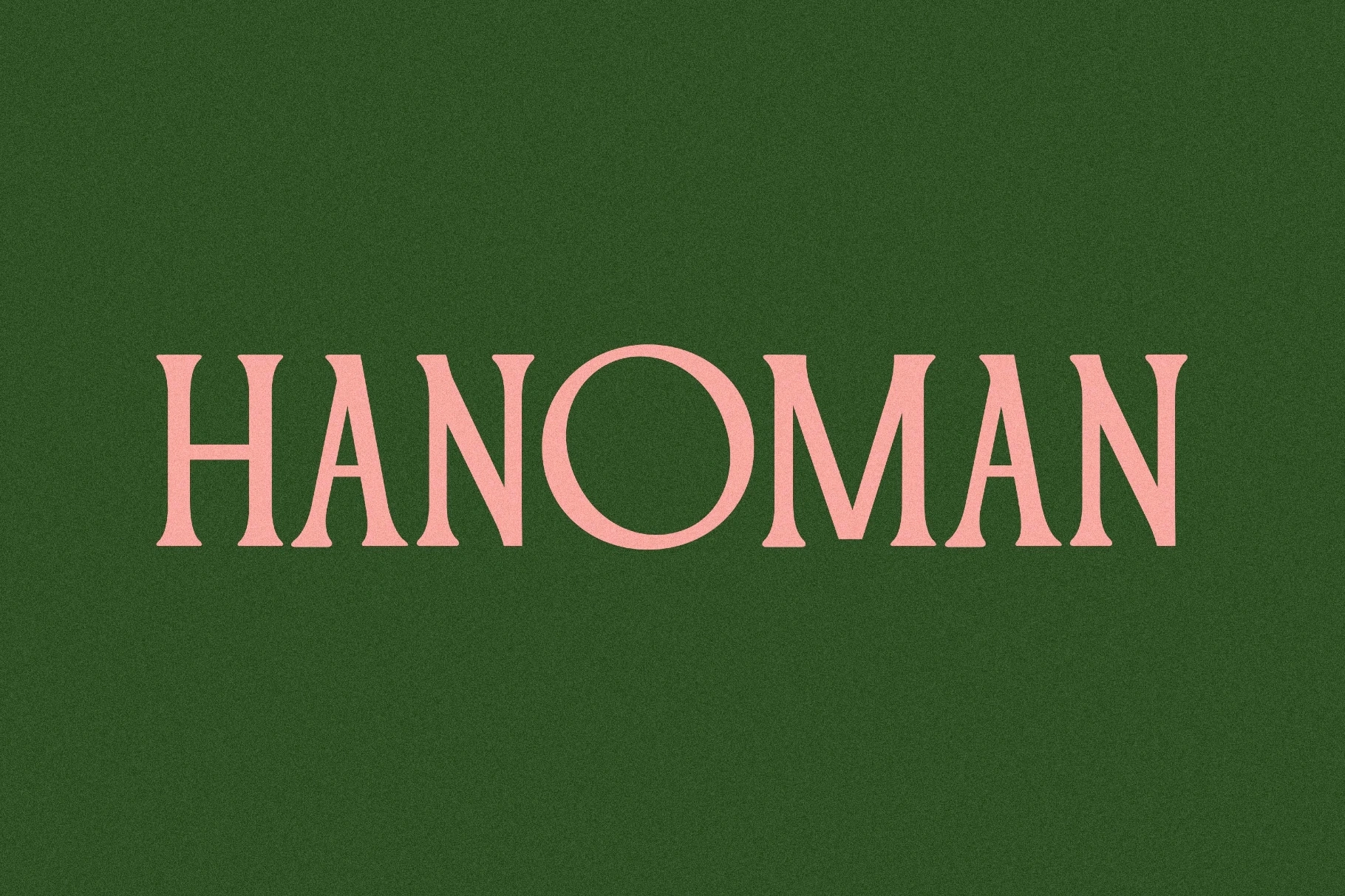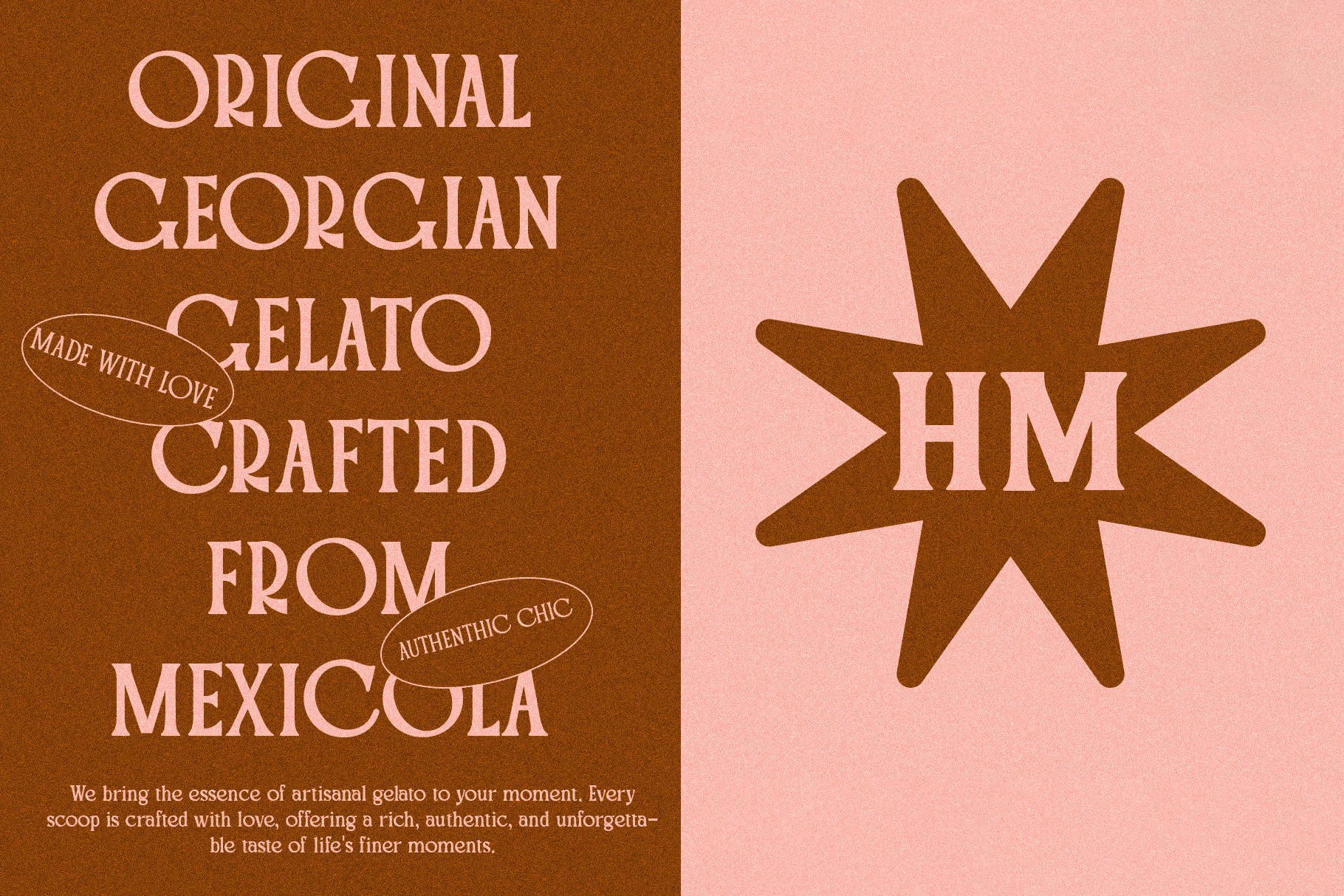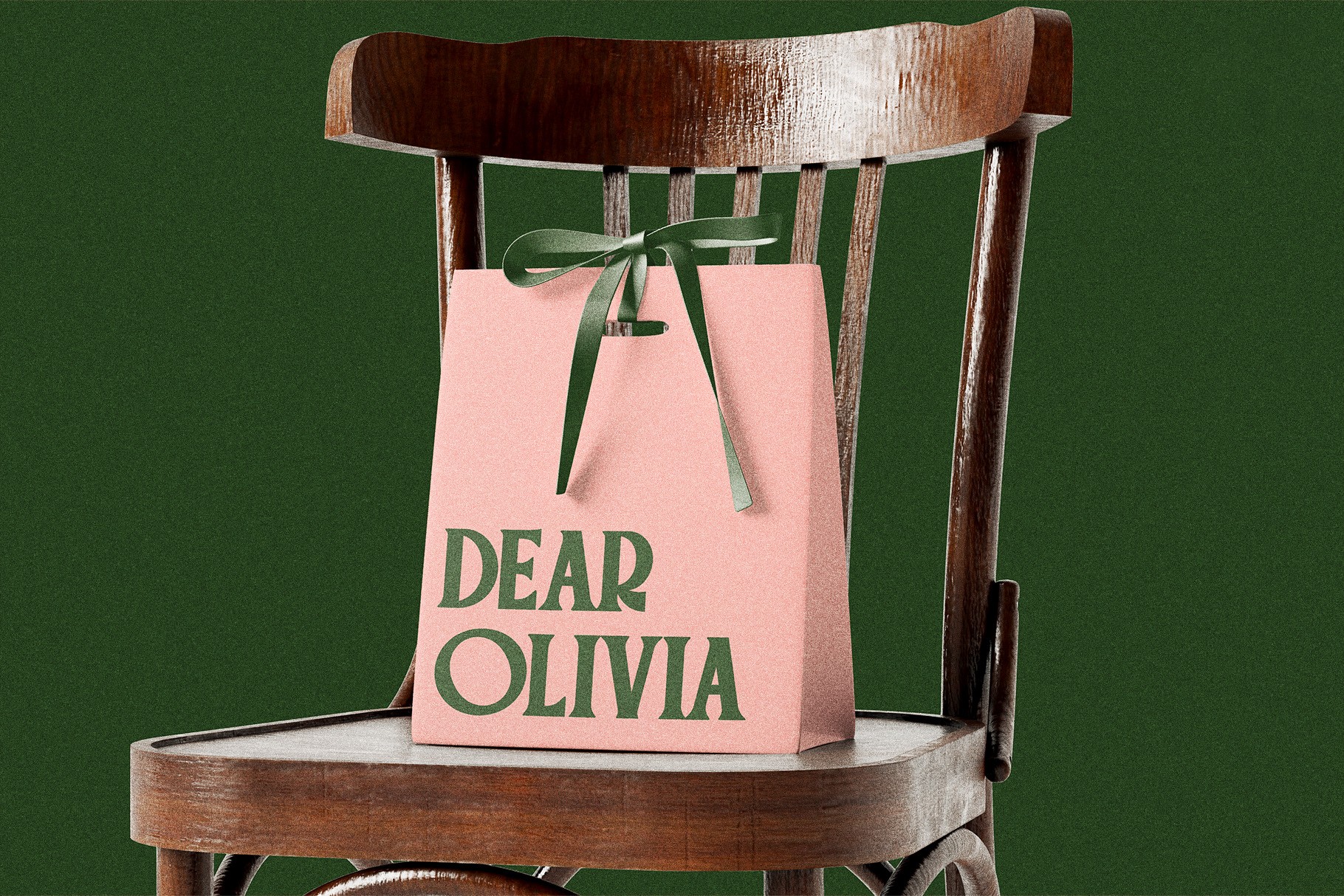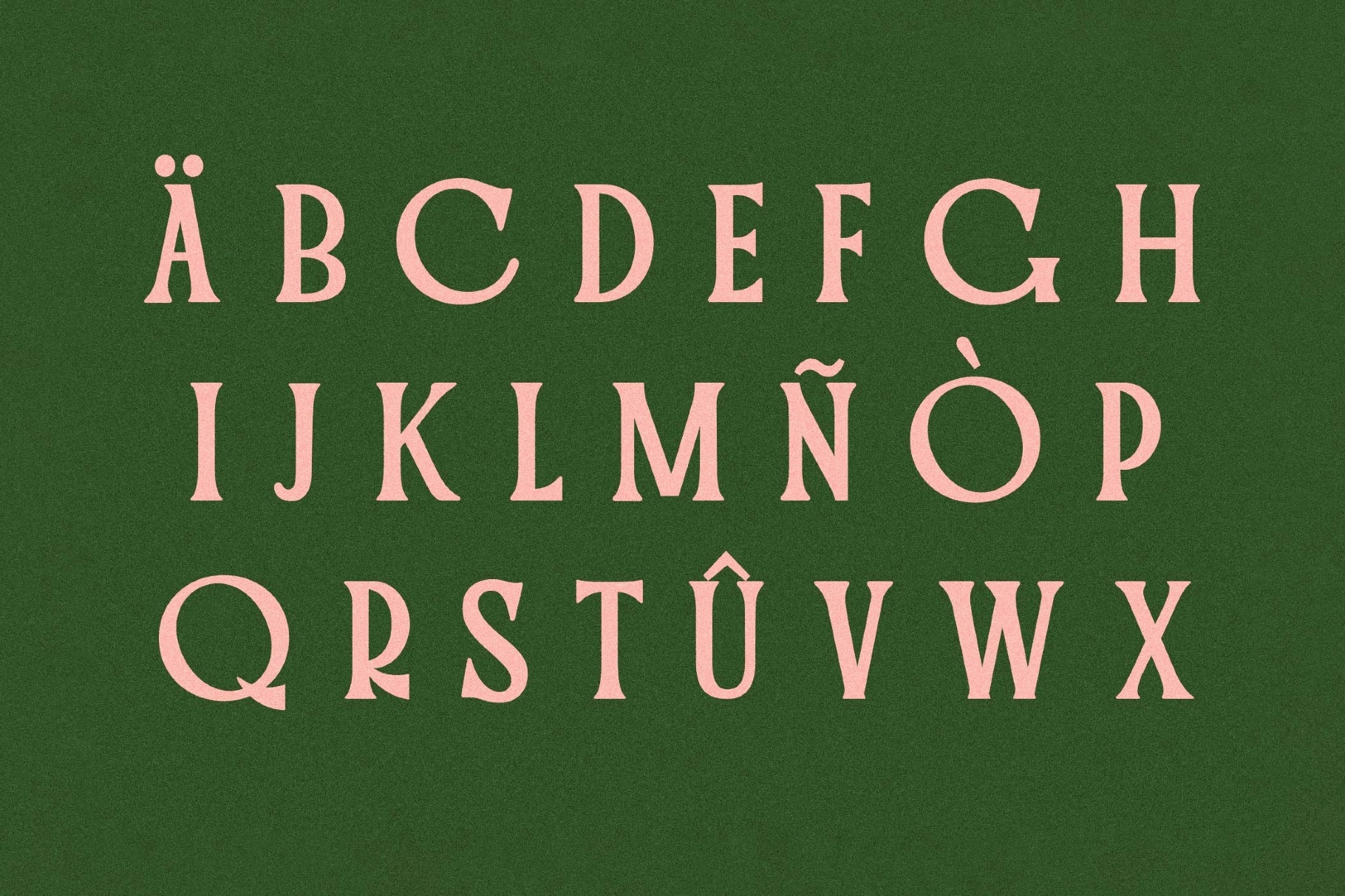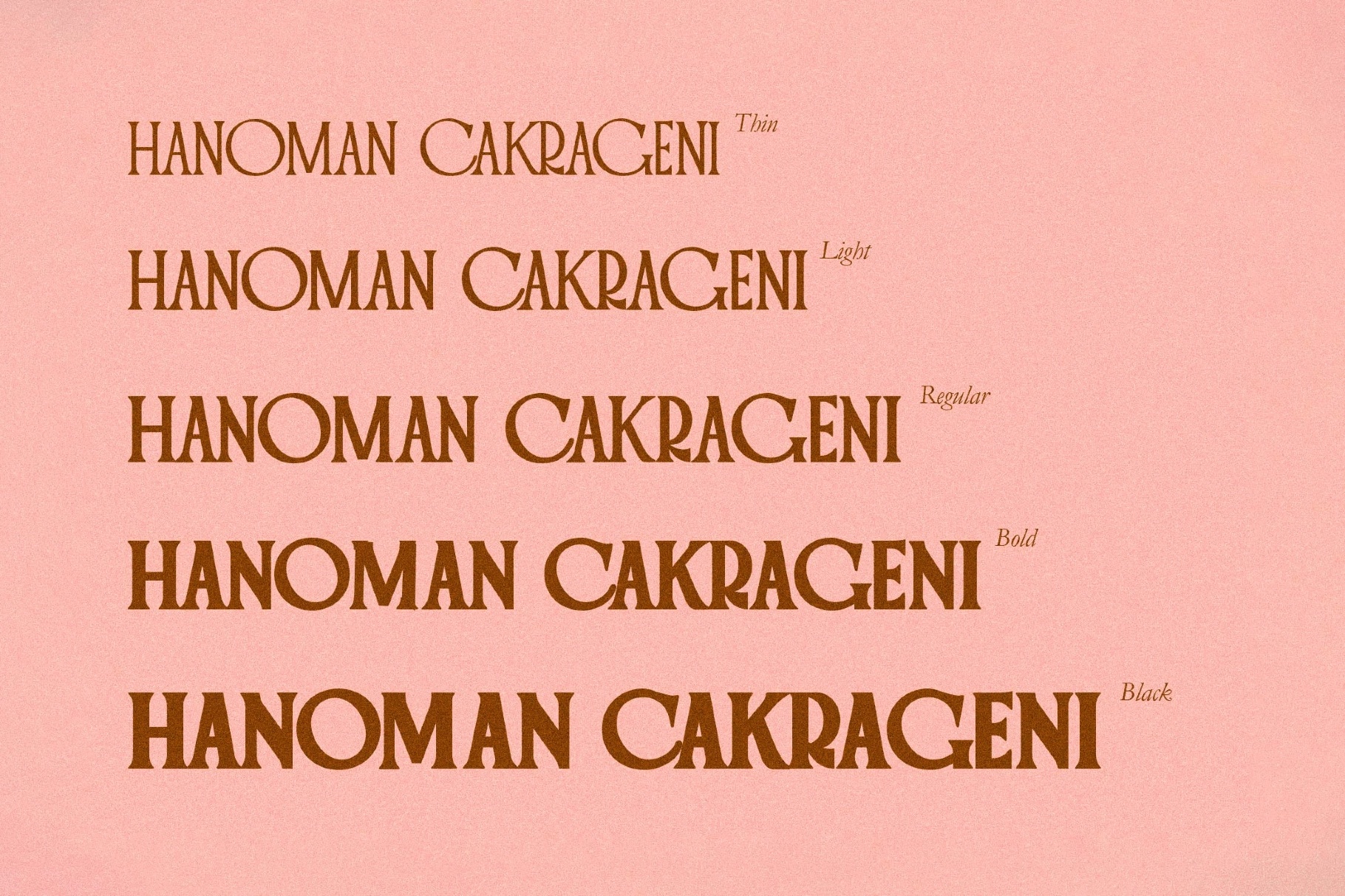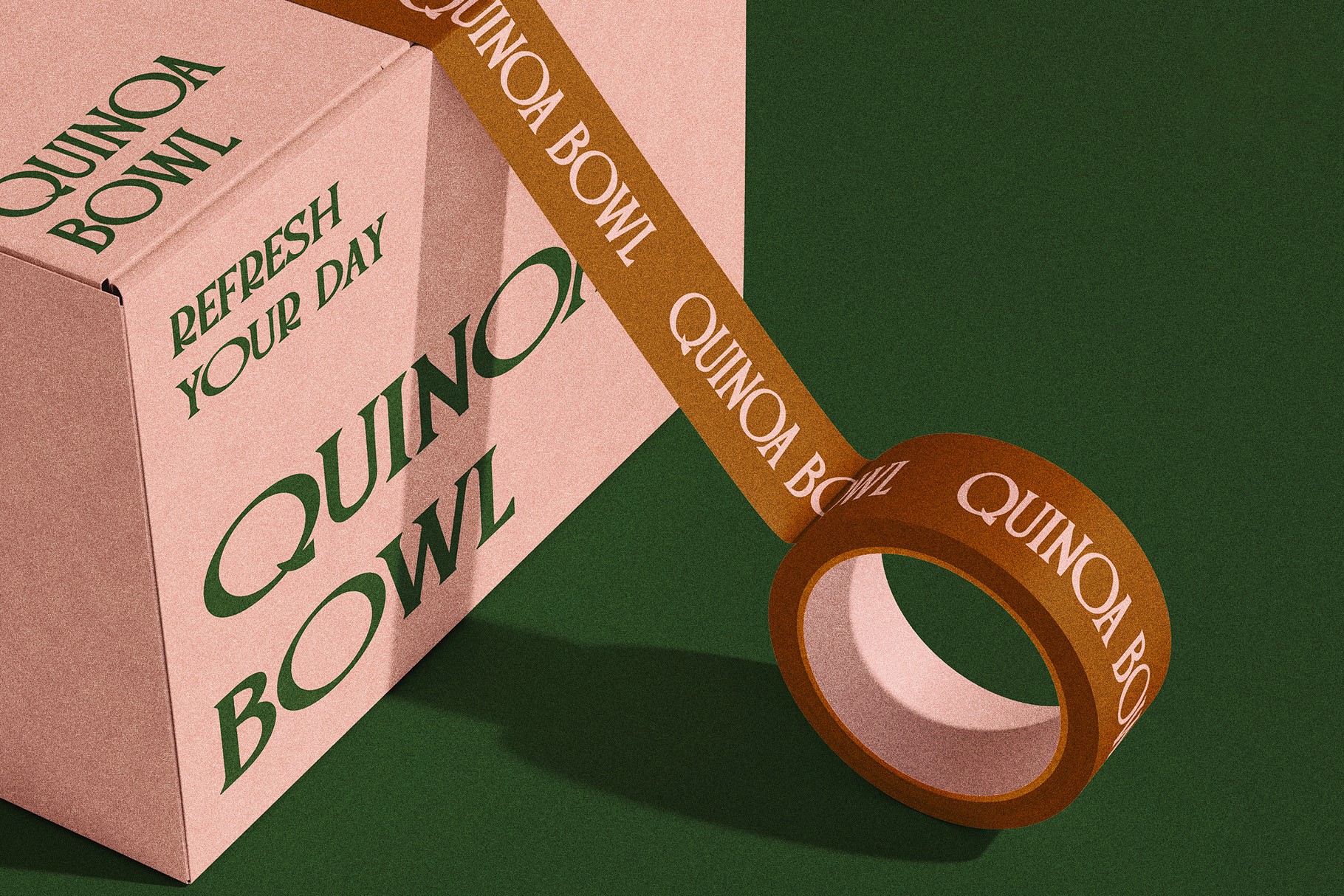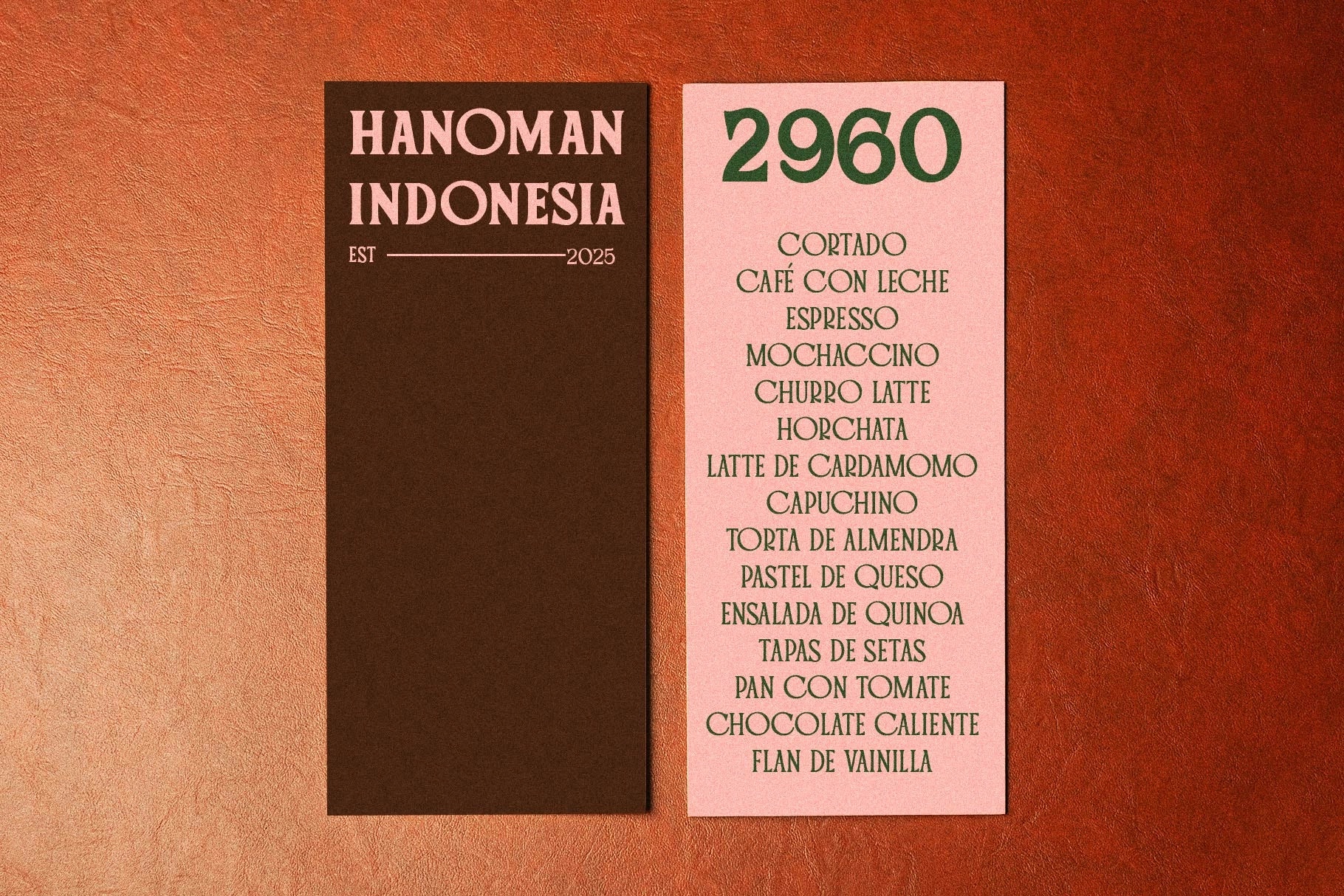
Hanoman - Vintage Serif Font Family
Hanoman is a vintage serif font family with six weights, from Thin to Black, built on letterforms that look pulled off an old soda-fountain sign — a perfectly round O that locks into the N beside it, flared serif feet, and a curled tail on the G that keeps escaping the baseline. The construction stays classic across all six weights, so a headline set in Black and body copy set in Light still read as the same typeface family.
Hanoman settles into gelato and café branding, vintage-inspired packaging, and wedding stationery that wants a hand-set look without going full script. Use it for restaurant menus, logo wordmarks, magazine mastheads, and luxury packaging labels that need one serif to run from a poster headline down to the fine print.